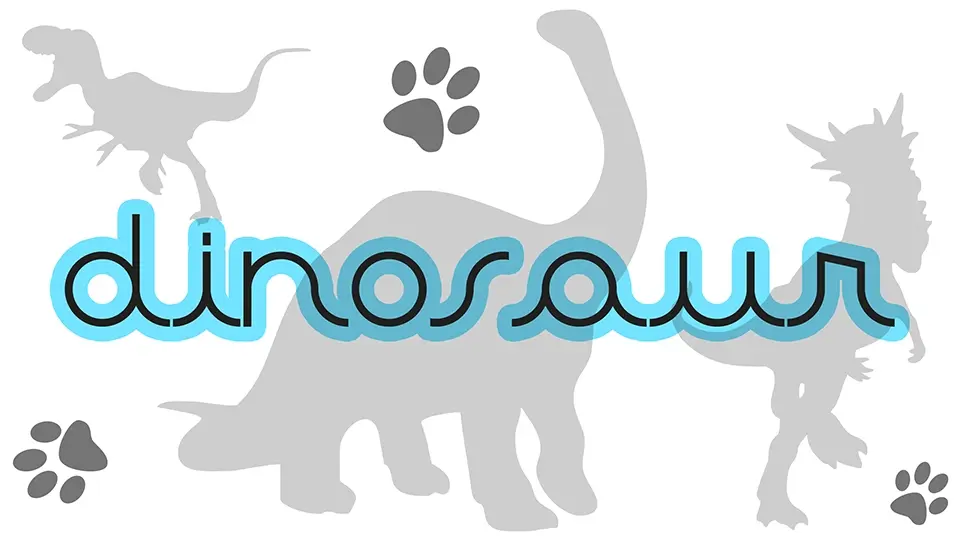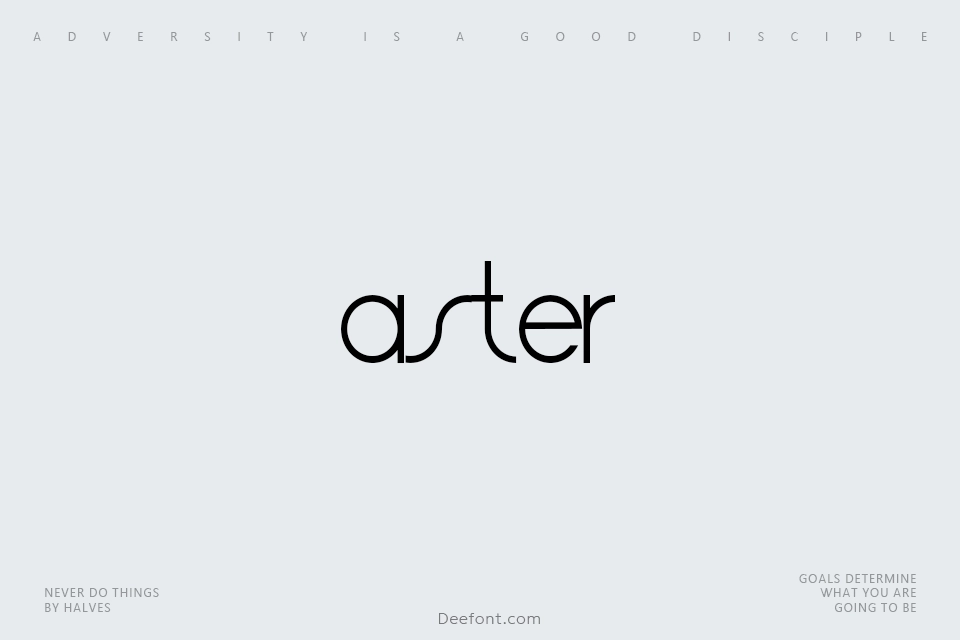
Aster Font
Aster is a versatile display typeface created by skomii, combining basic geometric forms with contemporary design aesthetics. This distinctive font features unique letterforms that blend playful sophistication with modern minimalism, making it ideal for logos, headlines, posters, and creative branding projects. The font's elegant curves and balanced proportions deliver both artistic expression and legibility across various design applications.